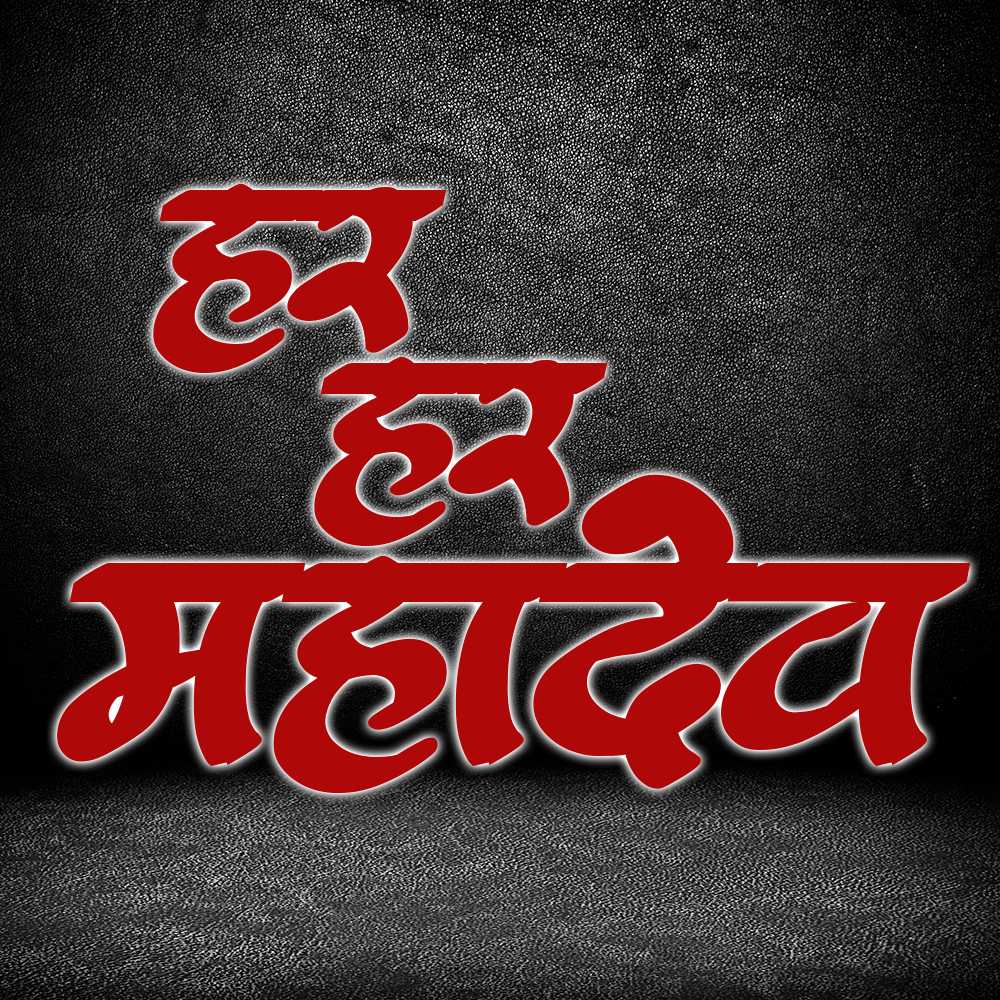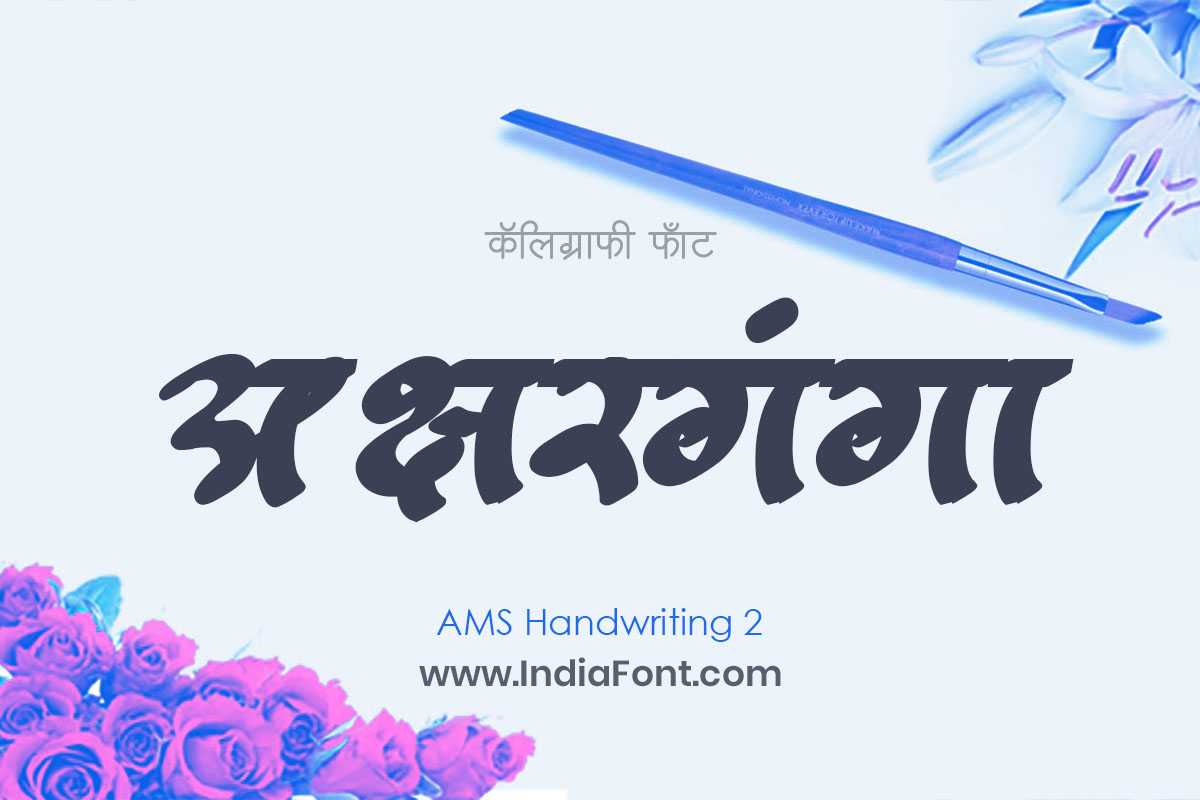
AMS Handwriting 2
Experience the graceful strokes and delicate curves of AMS Handwriting 2, a Hindi and Marathi calligraphy font that captures the essence of elegance. Whether you're searching for AMS Handwriting 2 font download options or free AMS calligraphy fonts, AMS Handwriting 2 will elevate your designs with its authentic handwritten feel.
About AMS Handwriting 2 Font
Experience the graceful strokes and delicate curves of AMS Handwriting 2, a Hindi and Marathi calligraphy font that captures the essence of elegance. Whether you're searching for AMS Handwriting 2 font download options or free AMS calligraphy fonts, AMS Handwriting 2 will elevate your designs with its authentic handwritten feel. This calligraphy font combines elegance with functionality, making it perfect for various design applications.
AMS Handwriting 2 is a professionally crafted calligraphy typeface that brings clarity and style to your projects. Designed with attention to detail, it supports hindi and marathi characters flawlessly.
Whether you're working on wedding-materials, invitations, logos, or other creative projects, AMS Handwriting 2 delivers consistent performance across both digital and print media. This carefully designed typeface ensures readability and visual appeal in all your design work.
About AMS Handwriting 2 Typography Style
AMS Handwriting 2 is a professionally crafted calligraphy font that exemplifies modern Hindi typography design. This free font is perfect for designers seeking professional branding and logo design projects.
Available in 1 weight and supporting hindi, marathi scripts, AMS Handwriting 2 offers exceptional versatility for both digital and print media. Whether you're working on wedding-materials, invitations, logos, this carefully designed typeface ensures consistent quality and professional results across all your typography projects.